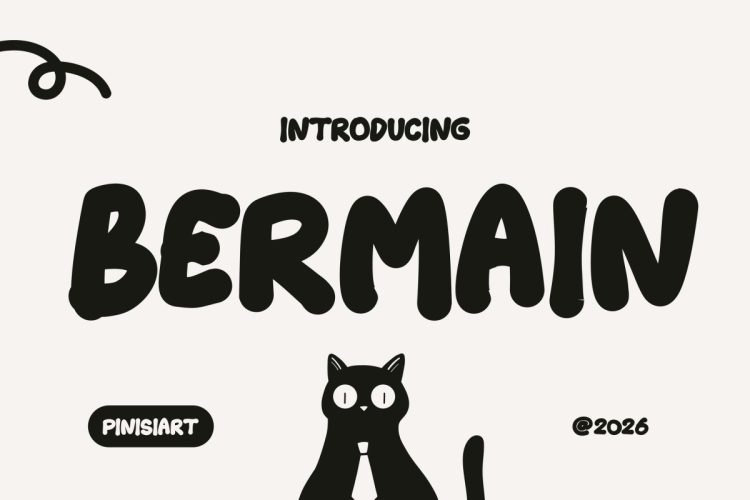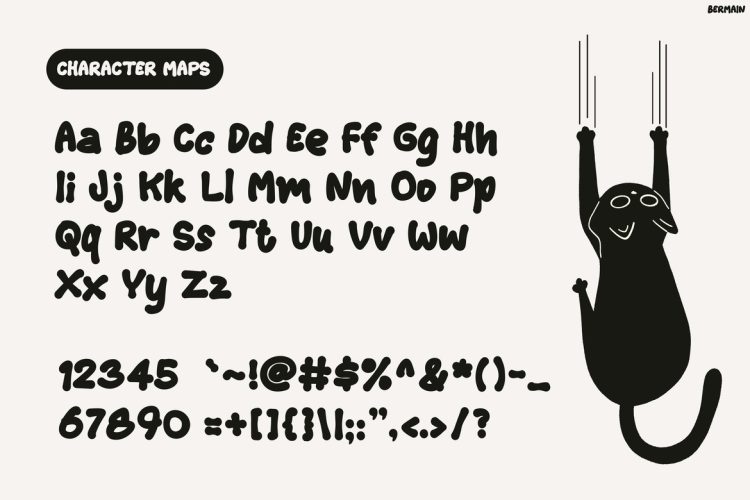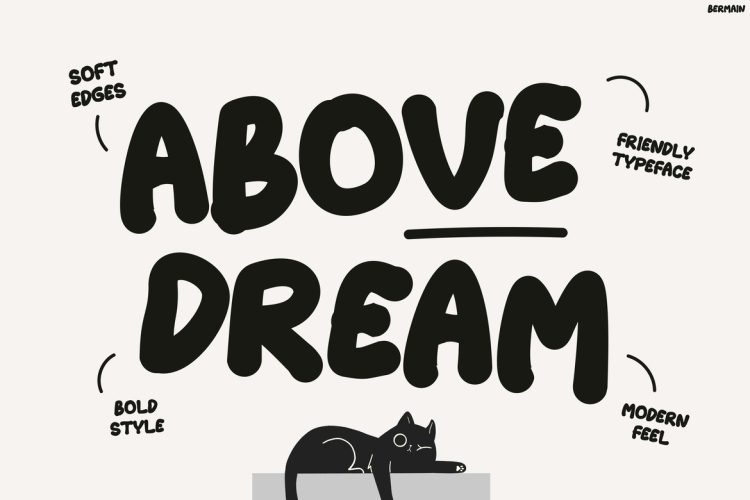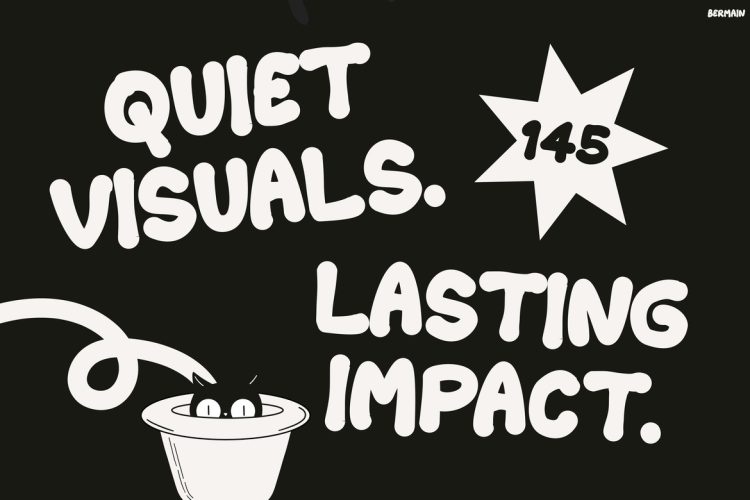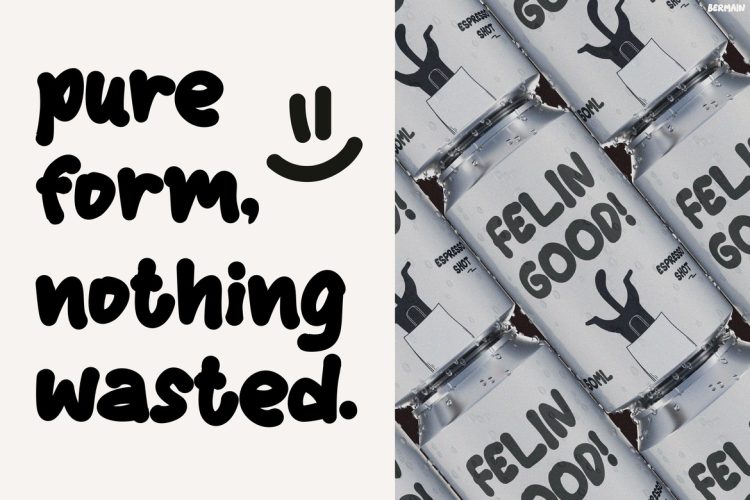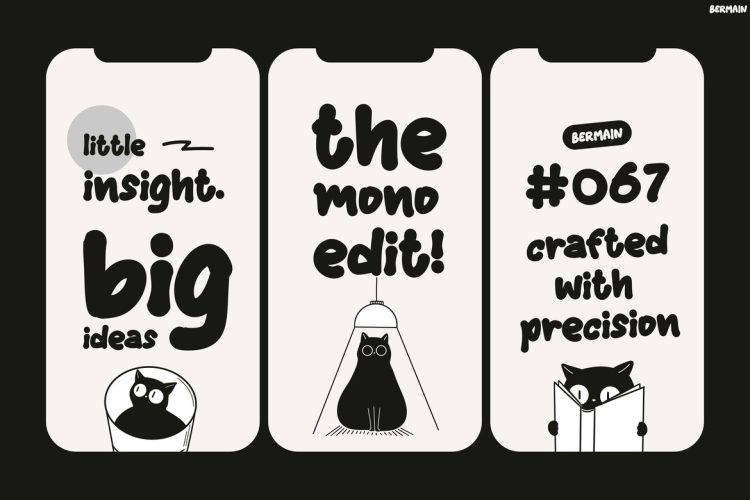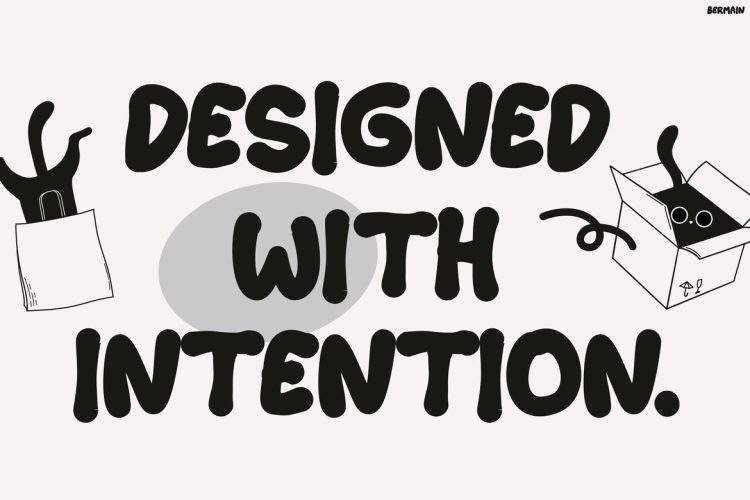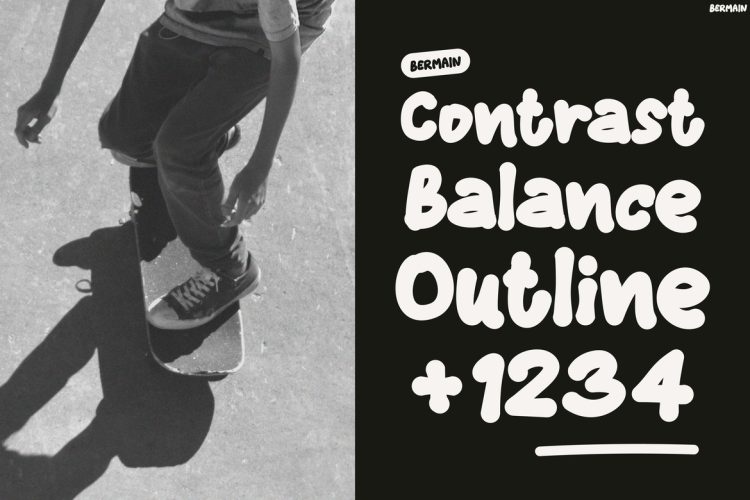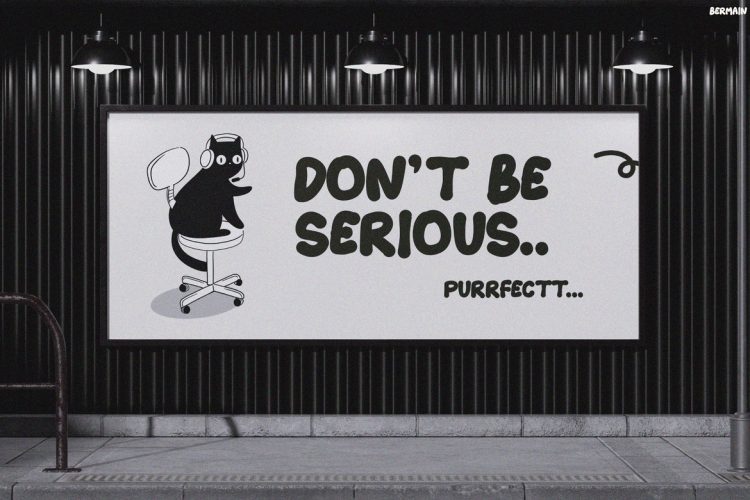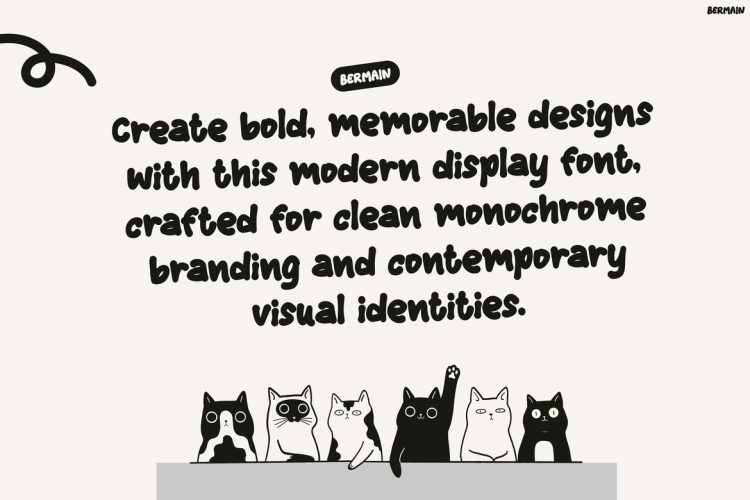
Bermain โ Create Loud, Fun & Memorable Designs with Every Letter
Kids Font Bermain is a bold display font with chunky letterforms, soft rounded edges, and playful proportions. Inspired by childhood imagination, it delivers a friendly yet confident personality. Moreover, every character is designed to feel expressive and full of energy. At the same time, the thick strokes keep every word clear and readable. As a result, your headlines stand out across both print and digital media. Whether you are creating branding, posters, or packaging, Bermain adds a cheerful and modern touch. In addition, its playful style blends perfectly with colorful illustrations and simple layouts. Therefore, every design feels more engaging, memorable, and inviting.
Kids Font Bermain Perfect Forย
Additionally, Kids Font Bermain is a versatile choice for many creative projects.
- Creative Branding โ Perfect for kids brands, toy stores, snack packaging, cafรฉs, and playful business identities.
- Marketing & Promotions โ Great for posters, flyers, banners, event graphics, and advertising campaigns.
- Digital Content โ Ideal for Instagram posts, YouTube thumbnails, TikTok covers, website headers, and social media graphics.
- Creative Merchandise โ Suitable for children’s books, greeting cards, stickers, invitations, T-shirts, school materials, and craft projects.
Furthermore, it is an excellent option for designers, illustrators, educators, content creators, branding studios, and small business owners. Likewise, it helps every project feel approachable, fun, and full of personality.
Make Every Headline More Playful